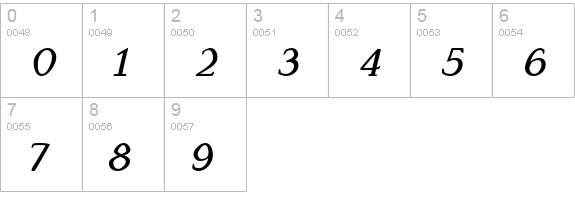
EuroikaKamp BoldItalic is a stunning and elegant font that exudes sophistication and style. Its bold yet graceful curves make it perfect for adding a touch of luxury to any design project. This versatile font is ideal for headings, logos, invitations, and more, making it a must-have for any designer looking to make a statement. The best part? EuroikaKamp BoldItalic is available for free download at FontsMarket.com. This means you can access this beautiful font without any cost, allowing you to elevate your designs without breaking the bank. Don't miss out on this incredible opportunity to enhance your creative projects with EuroikaKamp BoldItalic – download it today and see the difference it can make!